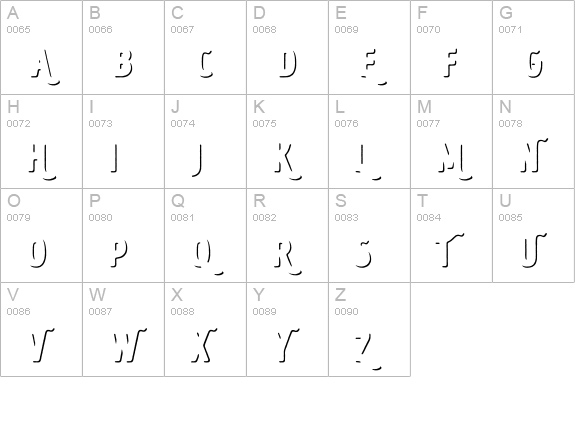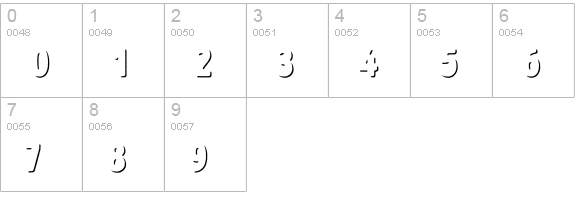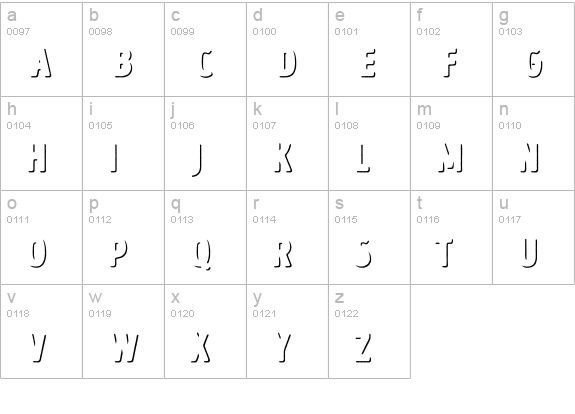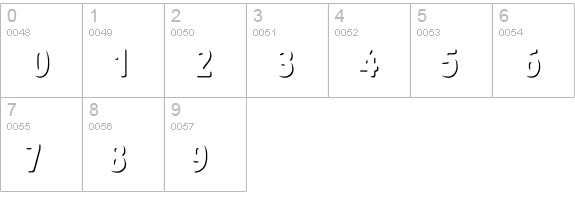
Intro Head H UC Shade Font Details
Intro Head H UC Shade font is a stunning and elegant typeface that exudes sophistication and modernity. With its unique design and stylish curves, this font is perfect for creating eye-catching headlines and titles that demand attention. The uppercase characters are bold and striking, making a powerful statement in any design project. What makes Intro Head H UC Shade font even more appealing is that it is available for free download at FontsMarket.com. This means that you can easily access this impressive font and use it in your projects without any cost. Whether you are designing a website, creating a poster, or crafting a logo, Intro Head H UC Shade font will add a touch of class and professionalism to your work. Download this font today and elevate your designs with its impeccable style and flair.